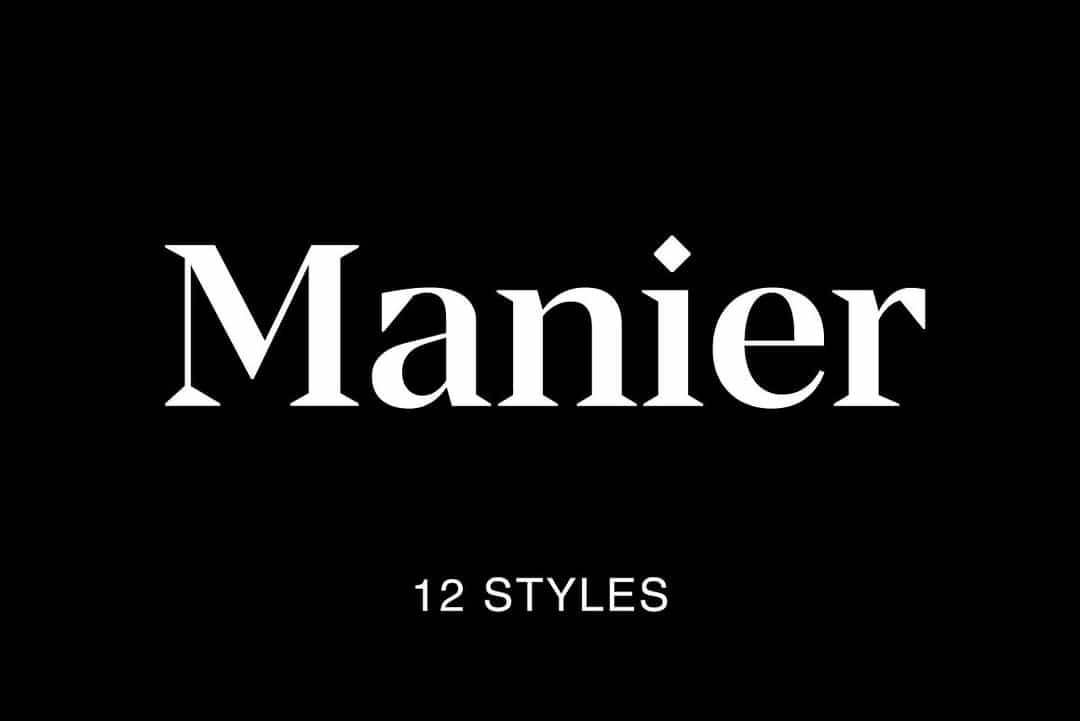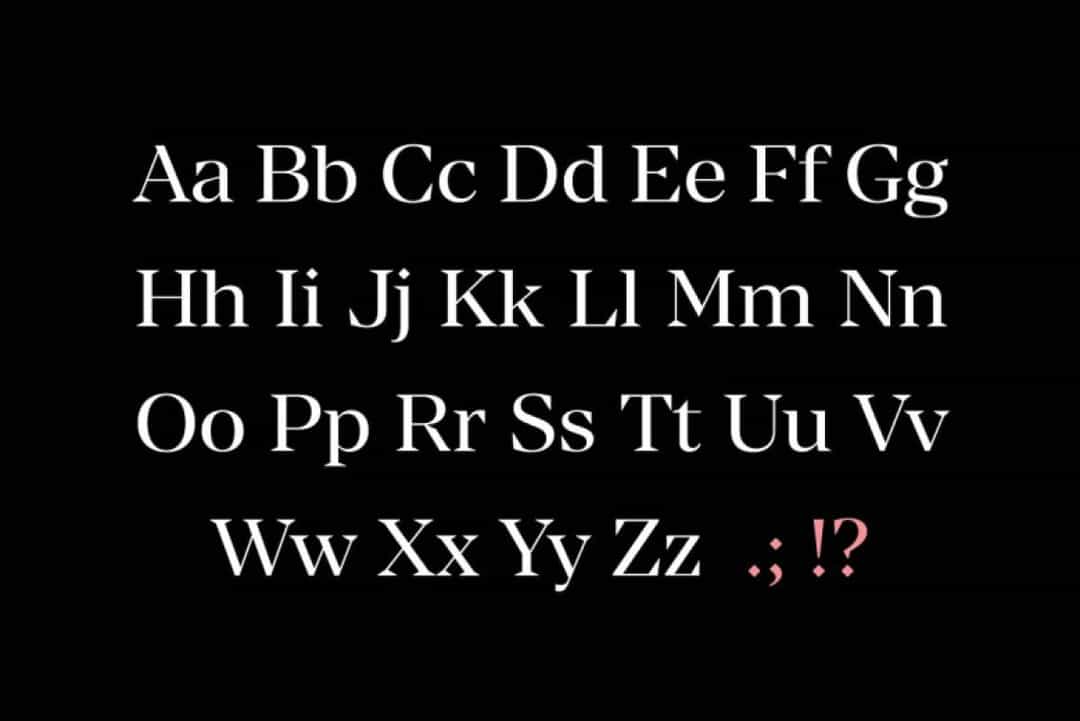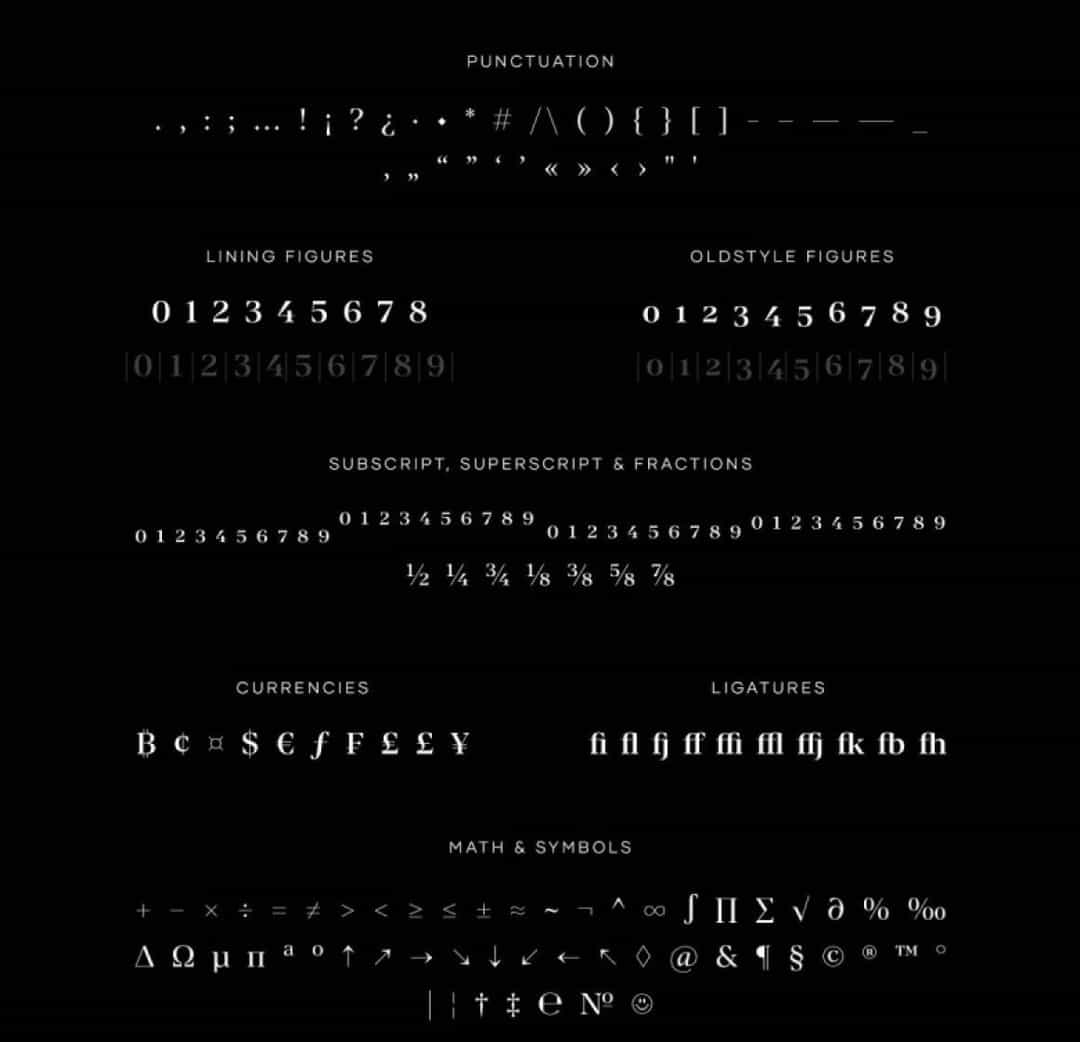
Manier is an intriguing new display font family inspired by both contemporary and transitional fonts, featuring a large x-height, modern dimensions, sharp serifs, an intense contrast in strokes and stress vertical.